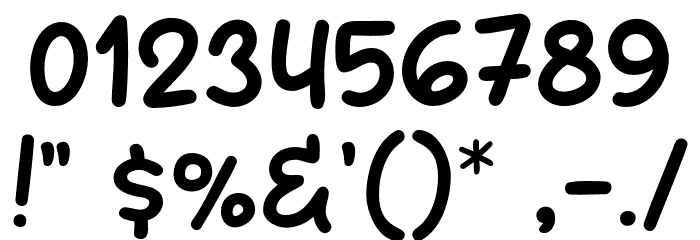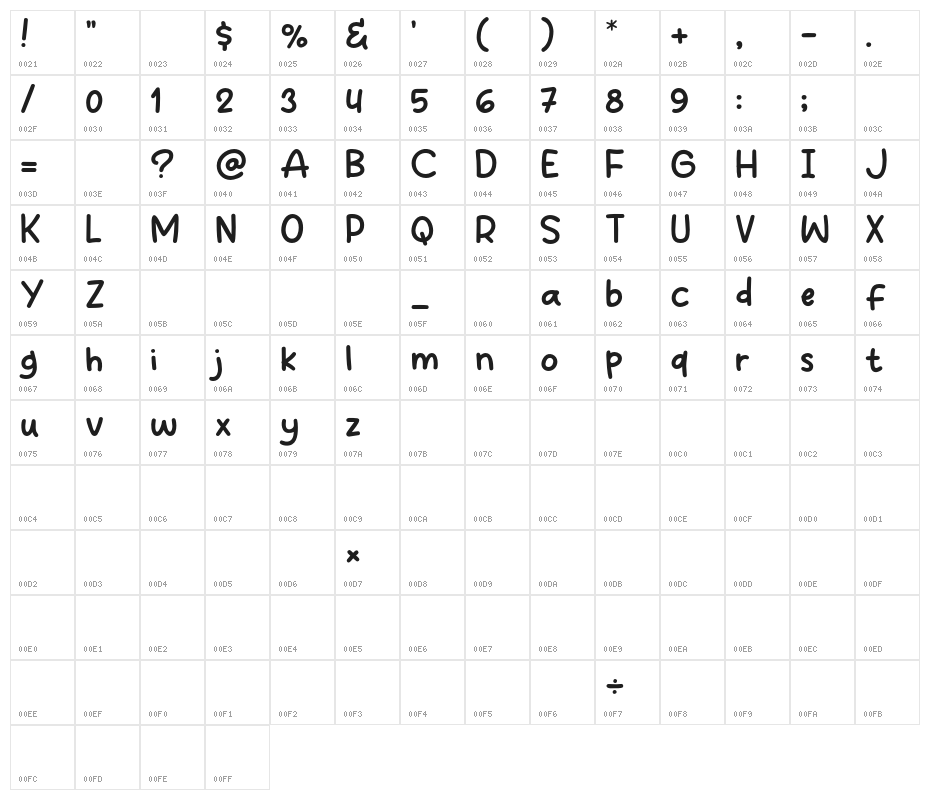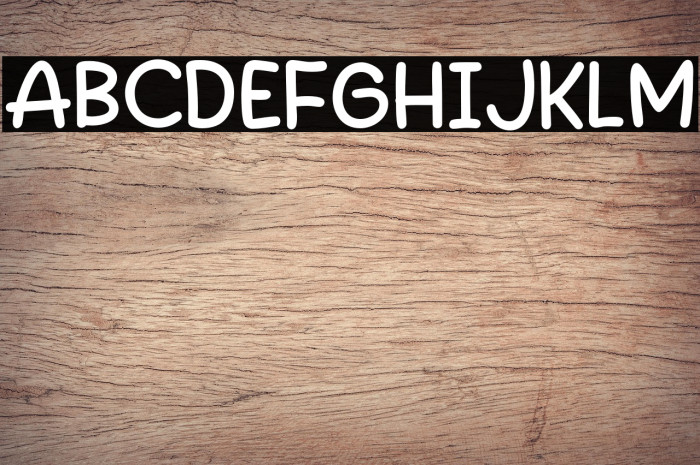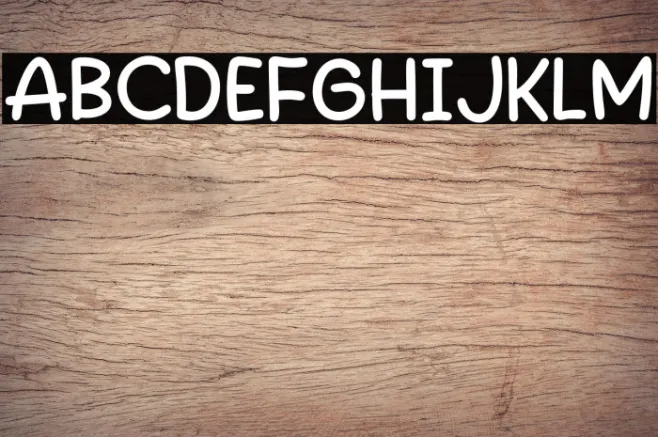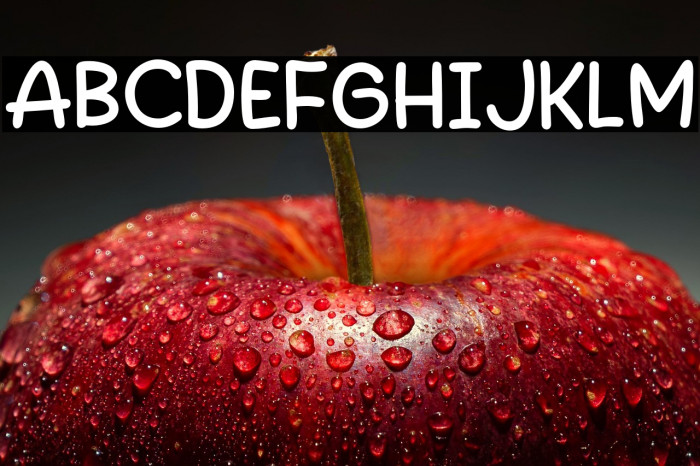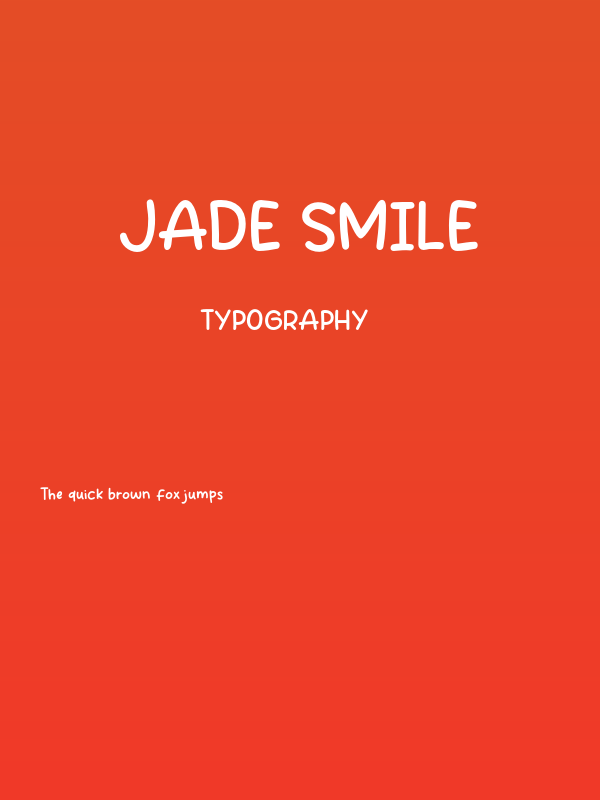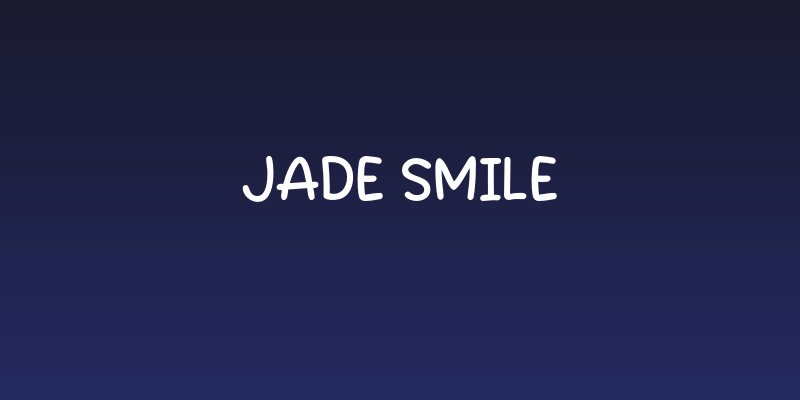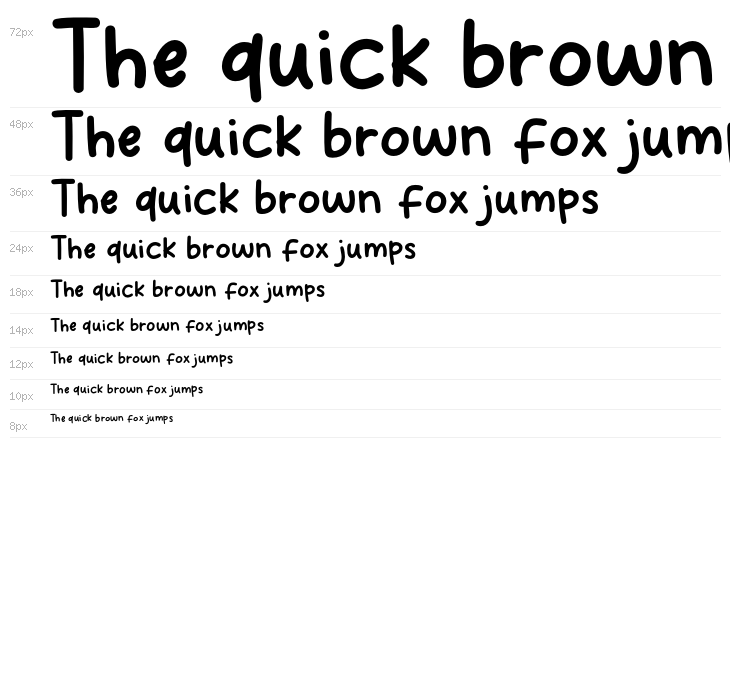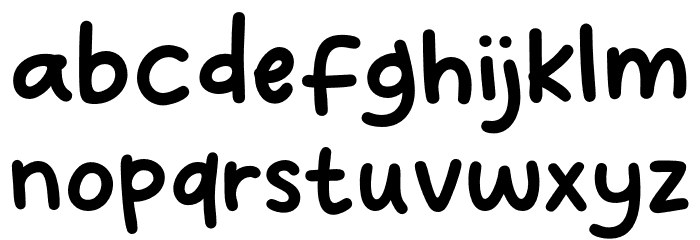
Jade Smile Font
Jade Smile Description
This playful and rounded font exudes a friendly and approachable vibe, making it ideal for casual and informal designs. The letters are bold and have a consistent stroke width, contributing to a cohesive and harmonious appearance. The characters are slightly condensed, which allows for efficient use of space while maintaining readability. The font's smooth curves and lack of sharp edges give it a soft and welcoming feel, perfect for projects aimed at children or conveying a sense of fun and lightheartedness. Its clear and legible design ensures that it can be used effectively in both digital and print media.
| Proposed Projects | Ideal for children's books, playful branding, casual invitations, and social media graphics. |